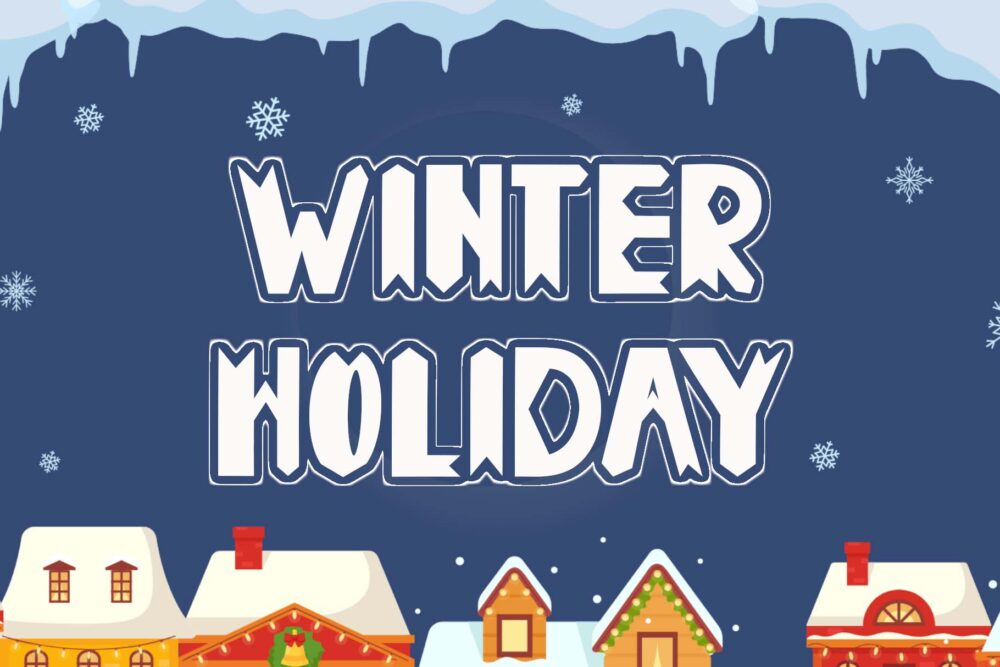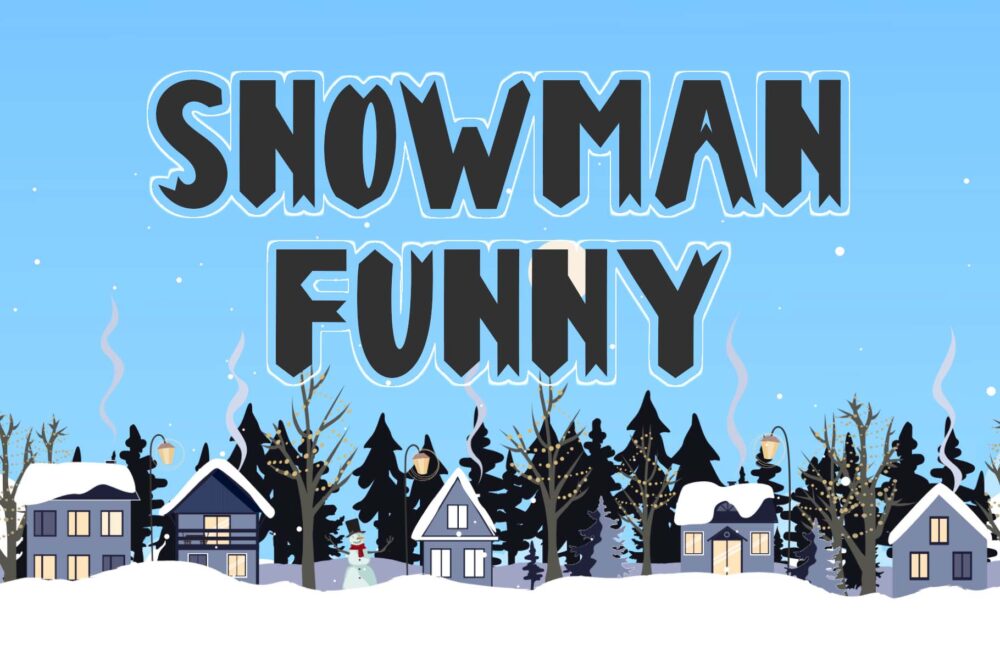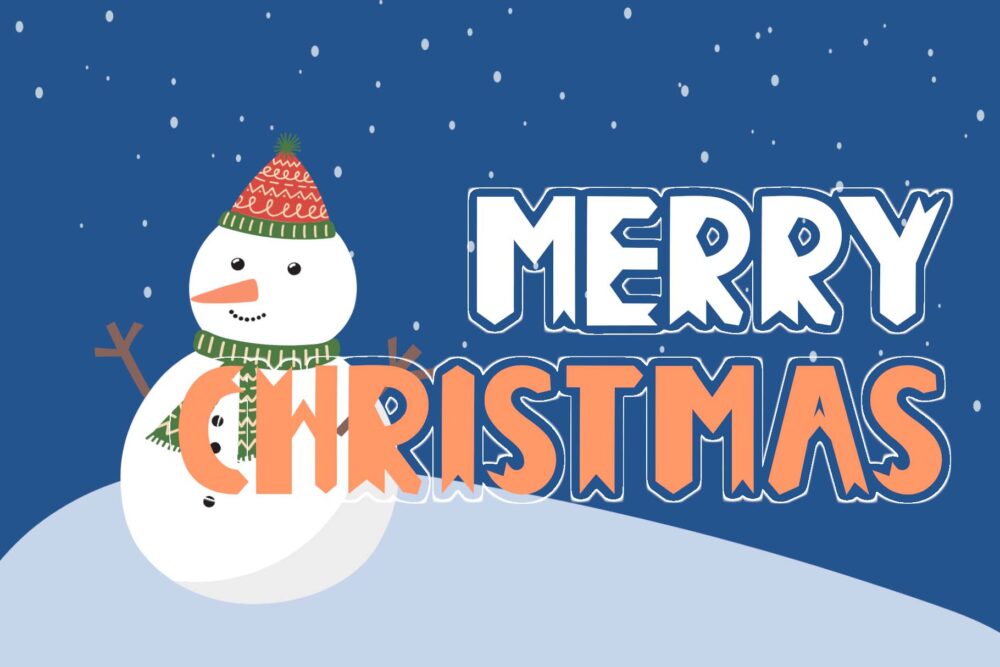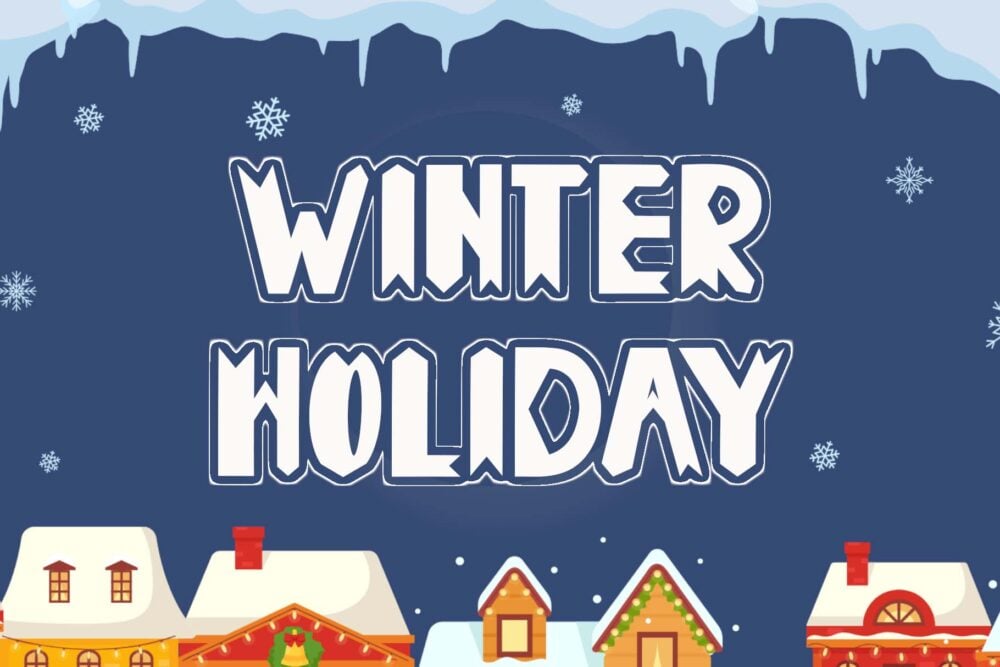
Christmas Games Font
Christmas Games is a playful and festive font perfect for holiday designs. Its bold, rounded letters and playful flourishes evoke the spirit of Christmas cheer. Ideal for invitations, cards, posters, and any project that needs a touch of holiday magic.